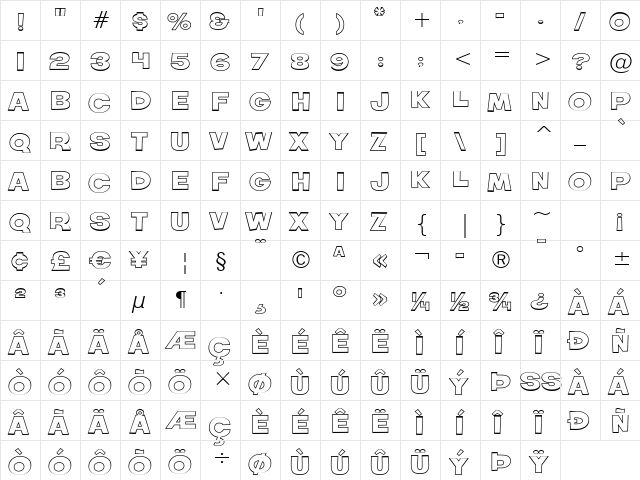
Roller World BTN Wide Bold Out Regular Font Preview
Roller World BTN Wide Bold Out Regular
Roller World BTN Wide Bold Out Regular Font Details
Design Context for Roller World BTN Wide Bold Out Typeface
Roller World BTN Wide Bold Out takes a measured approach to typography — its balanced proportions and neutral character make it a reliable workhorse for both digital and print work. Its bold stroke weight gives it real presence on the page.